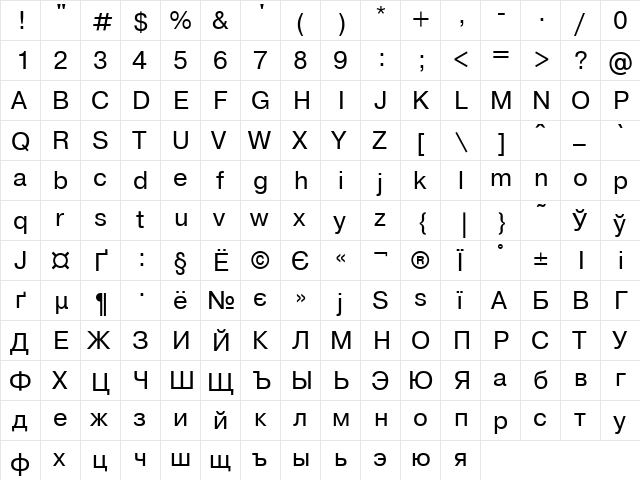
UkrainianPragmatica Regular
Design Context for UkrainianPragmatica Typeface
UkrainianPragmatica is a composed and adaptable typeface that performs quietly and consistently across a wide range of design contexts.